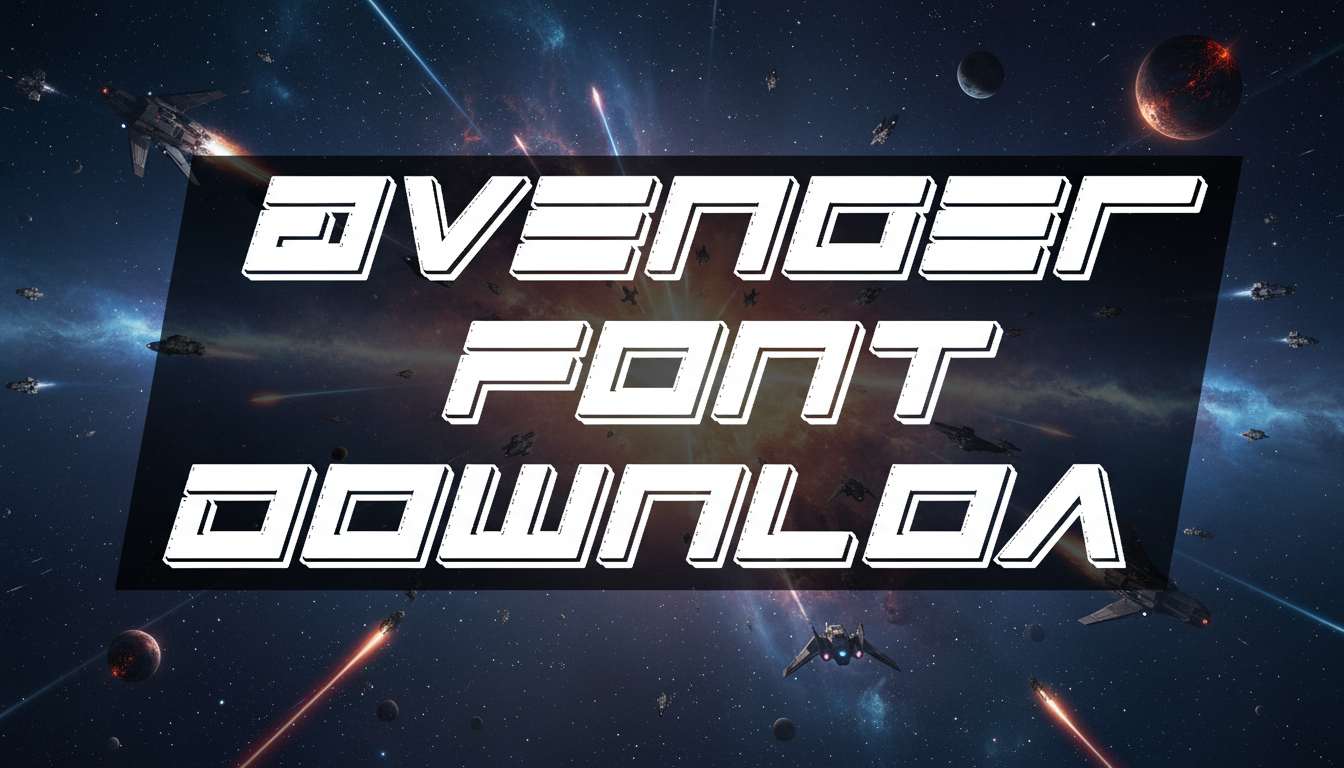
Avenger Font
Avenger
Avenger is a techno font that works well for gaming logos, tech branding and futuristic posters. The designer is Daniel Zadorozny.
Every letter from A to Z is here in both cases, and so are the digits 0–9. Common marks like &, !, ? and @ are included as well. It has the accented letters you need for Spanish, French, German, Portuguese and Italian, too.